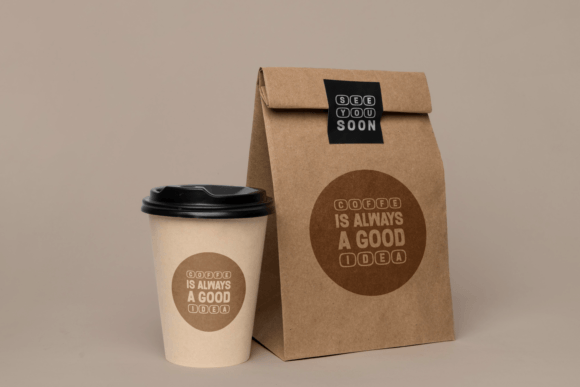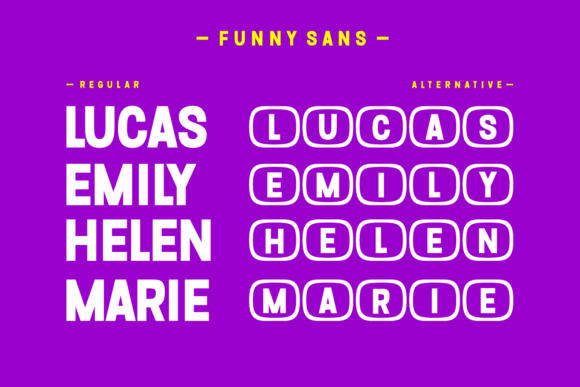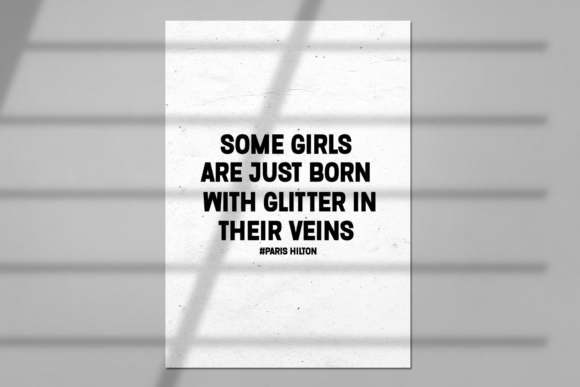
Introduction to Funny Sans Font
Funny Sans has a strong personality which makes it a perfect choice for display projects.
Perfectly suited for a wide range of applications from branding and logos, to candy and food packages, Funny Sans is a bright and fun typeface with a unique appearance This font is PUA encoded which means you can access all of the amazing glyphs and ligatures with ease.